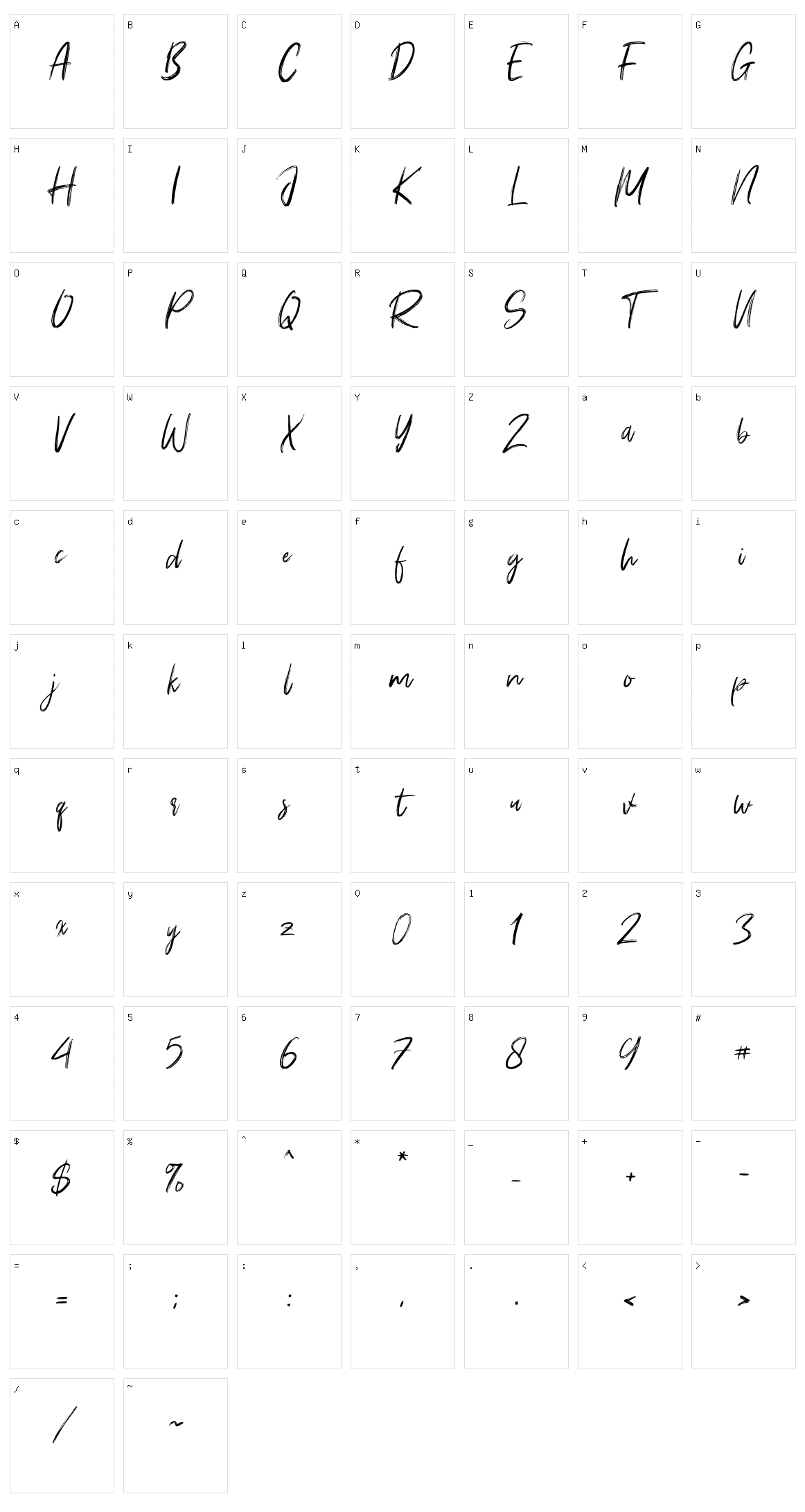
The free font Young Robust is carefully designed by Khurasan, showcasing a thoughtful balance of creativity and usability and falls under the Script font style. When you download the ZIP file, it contains only 367.13 KB of font files, making it lightweight and quick to download. Please review the license details below to understand permitted usage and distribution rights. If license information is not available, we recommend using this font for personal projects only or contacting the author directly for commercial usage permissions.